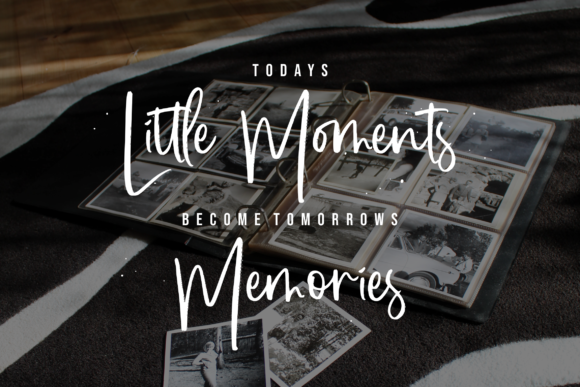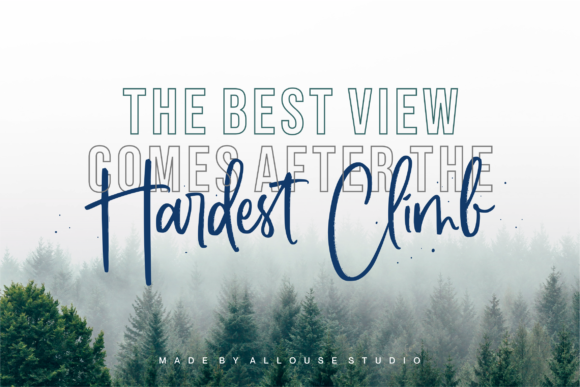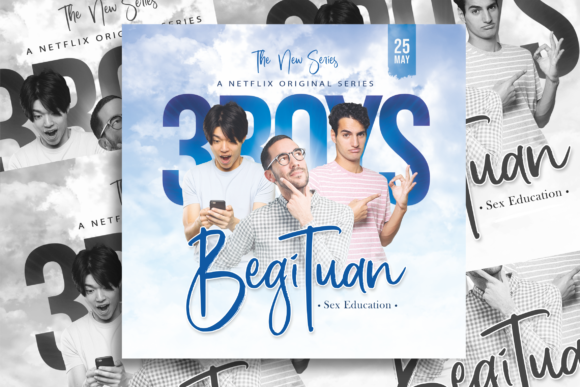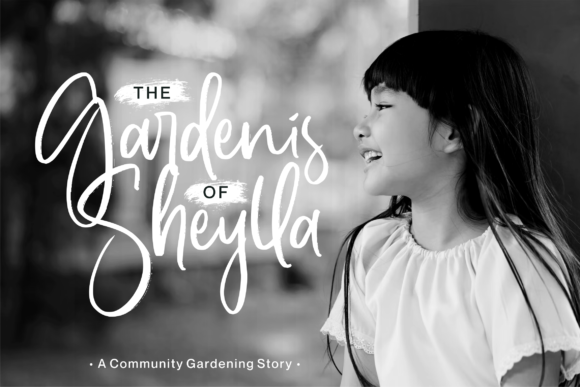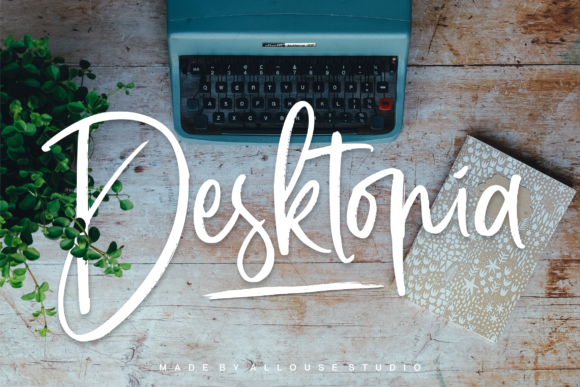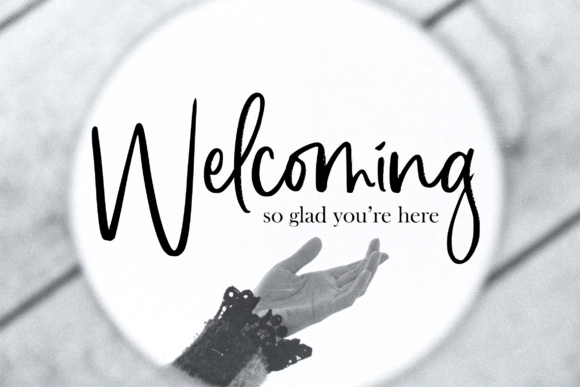
Introduction to History Stranger Font
Have you ever been working on a creative project, staring at a blank canvas, and suddenly, a spark of inspiration hits you? The words flow, the design comes together, and you know exactly what you want to convey. This is what happens when you find the perfect design resource – like the History Stranger Font.
This beautiful script font is a game-changer for designers, offering a high-quality, elegant look that’s perfect for various projects, from product packaging and branding to magazine covers and social media. With its unique, handwritten style and transparent background, the History Stranger Font is an excellent choice for designers looking to add a touch of sophistication and creativity to their work.
Key Features of History Stranger Font
- High-quality design for creative projects: The History Stranger Font is ideal for designers looking for a unique and eye-catching font for their projects.
- Transparent background: This font features a transparent background, making it perfect for designers who want to create visually appealing graphics with a seamless look.
- High-resolution design: The font is designed at 300 DPI, making it perfect for high-quality prints and large-scale designs.
- Unique characteristics: The History Stranger Font features a unique and quirky design, making it perfect for designers who want to add a touch of personality to their creative projects.
- Perfect for digital designs: The font’s transparent background and high-resolution design make it perfect for digital designs, such as website graphics, social media posts, and more.
Honest Review: History Stranger Font
I recently came across the History Stranger Font and I must say, it’s been a game-changer for my design projects. ✨
Here are some features that I love about the History Stranger Font:
- Unique and quirky design that adds a touch of personality to any project
- Transparent background, making it easy to layer and combine with other elements
- Available in a range of weights and styles, giving me plenty of options for different designs
- May not be suitable for professional or corporate projects where a more traditional font is required
- Some users may find the font too playful or distracting, depending on their personal taste
Overall, I’m thoroughly impressed with the History Stranger Font. It’s a fantastic addition to my design toolkit and I’m excited to see how I can use it in future creative projects.
Tips for Getting the Most Out of History Stranger Font
For optimal results, use the History Stranger Font in conjunction with other high-quality design resources. Experiment with different font sizes, colors, and styles to create a unique and captivating design.
Common Use Cases for History Stranger Font
The History Stranger Font is ideal for use in creative projects that require a touch of elegance and sophistication, such as branding, marketing materials, and editorial designs.
Does History Stranger Font have a transparent background?
Yes, History Stranger Font has a transparent background, making it ideal for use on designs with complex backgrounds or textures. The font’s transparent background also allows for easy layering and composition in design projects.